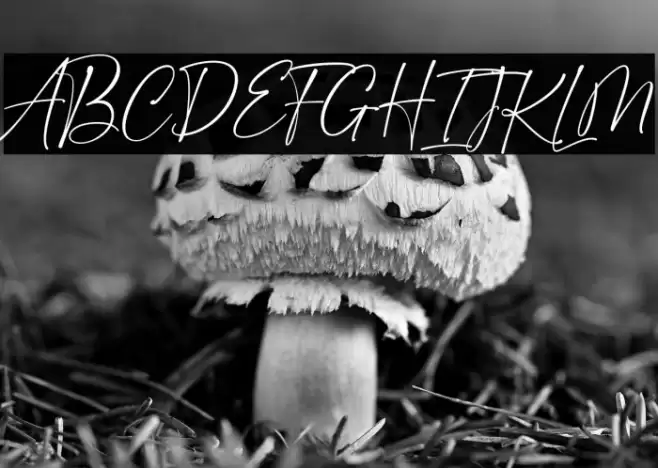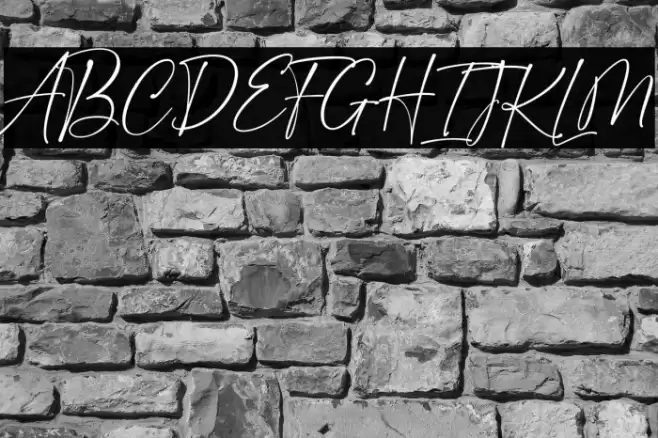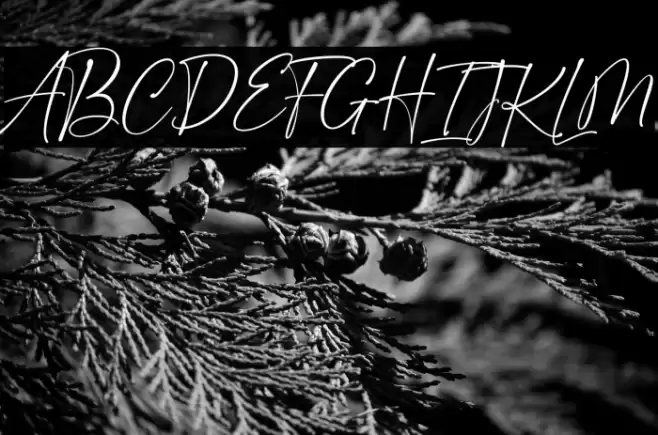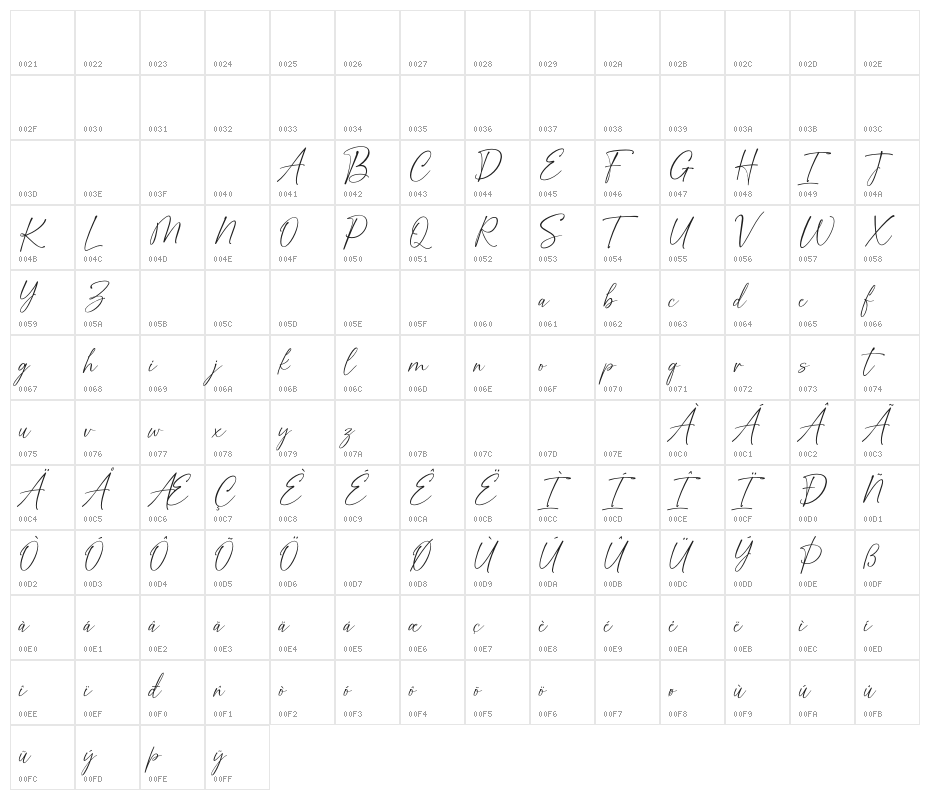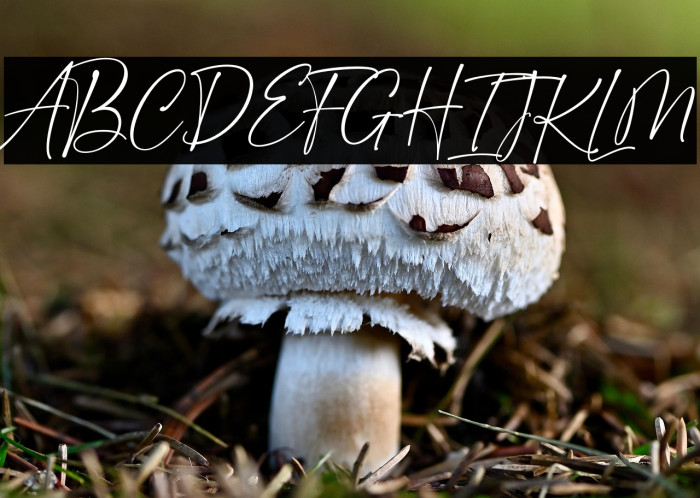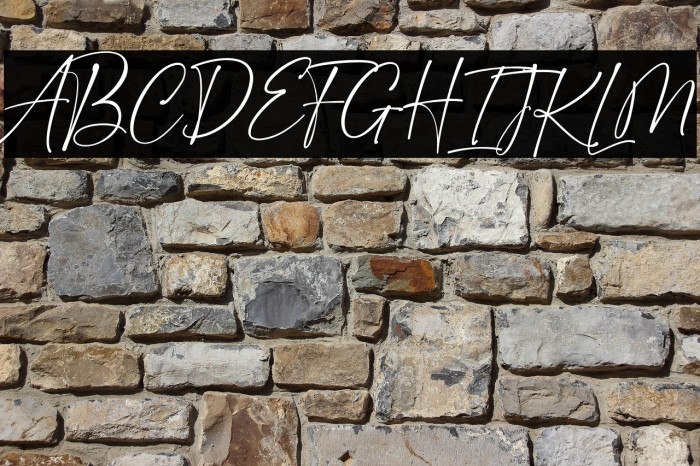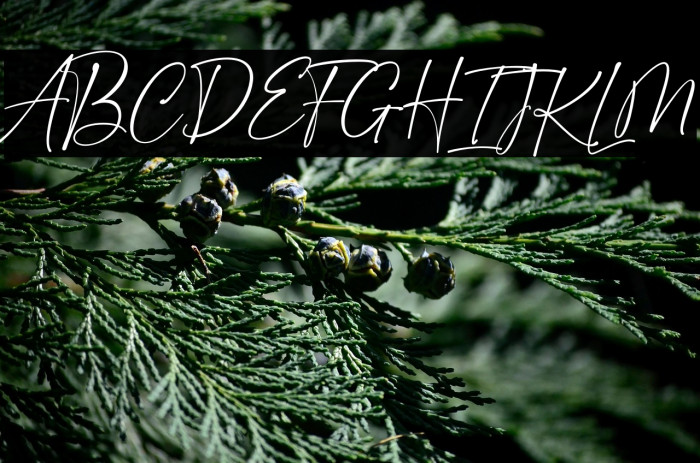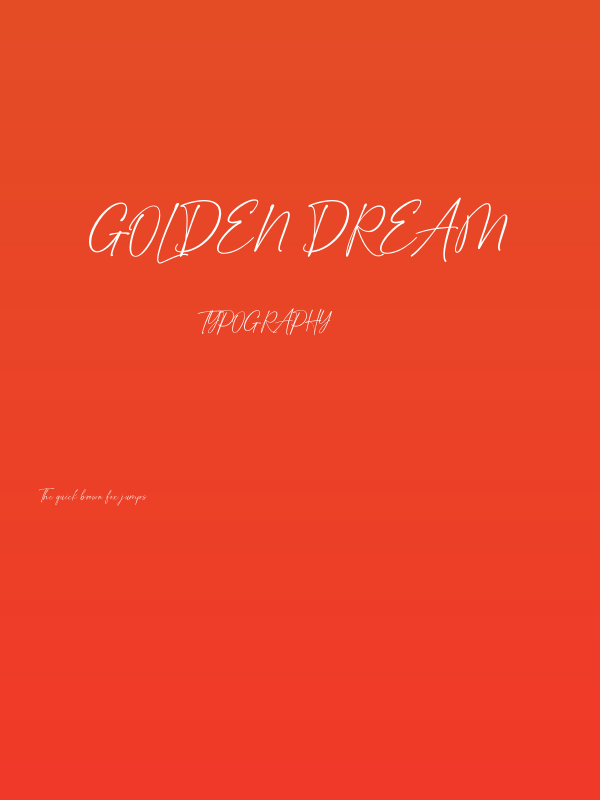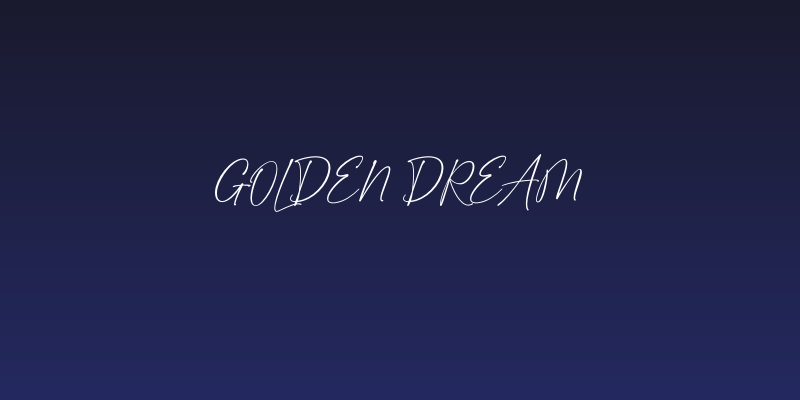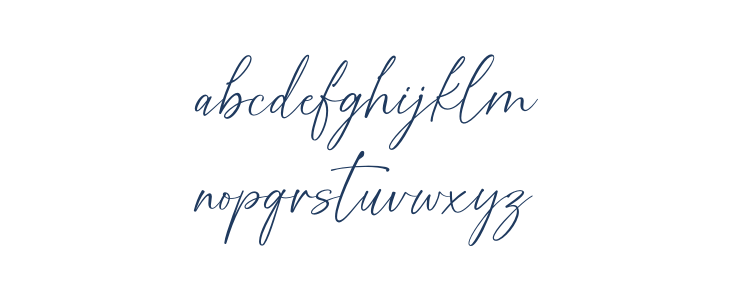
Golden Dream Font
Golden Dream Description
This elegant script font features a flowing, cursive style with a modern touch. The letters are connected, creating a seamless and continuous look that is both sophisticated and approachable. The uppercase letters are slightly more ornate, with graceful loops and curves that add a touch of flair. The lowercase letters maintain a consistent style, with smooth transitions and a balanced appearance. The font's overall aesthetic is delicate yet confident, making it suitable for a variety of applications where a personal and stylish touch is desired.
A modern, flowing script font with elegant, connected letters from Uncategorized fonts.
- Font: Golden Dream
- Proposed Projects: Ideal for wedding invitations, branding, greeting cards, and elegant packaging designs.
- Use Case: Logos, Invitations, Branding